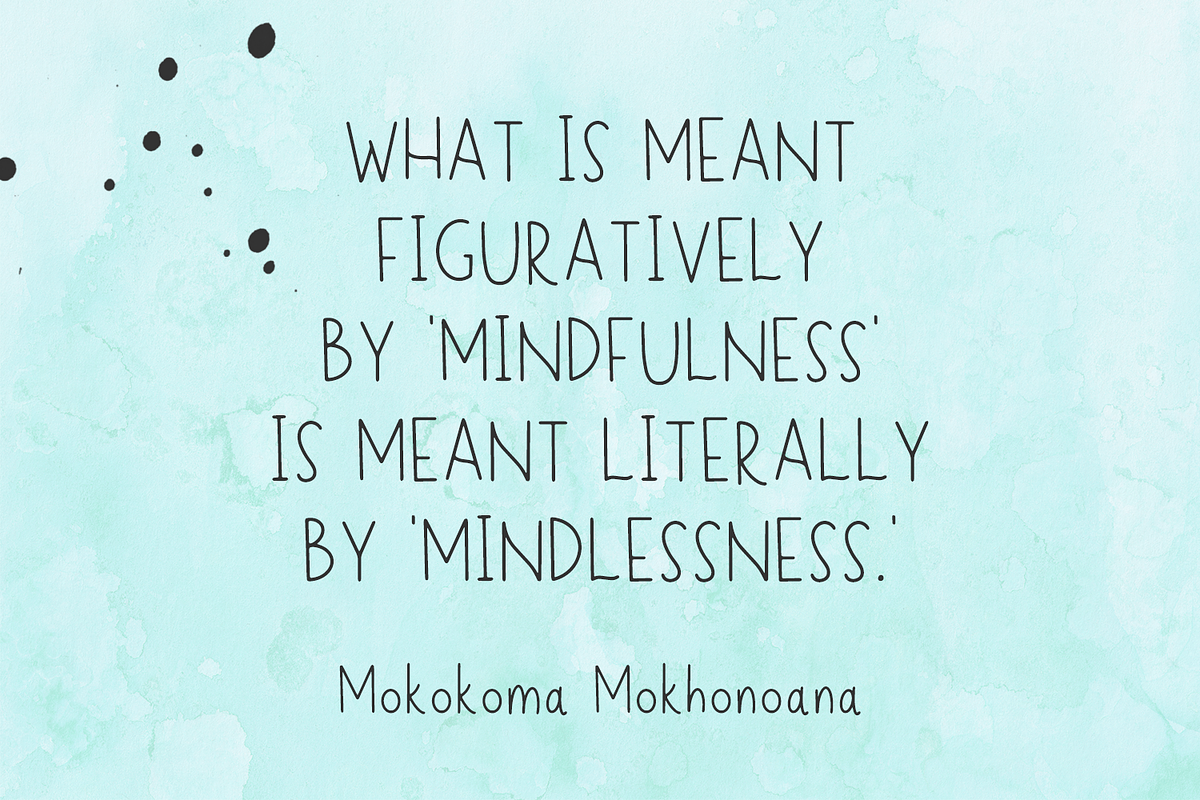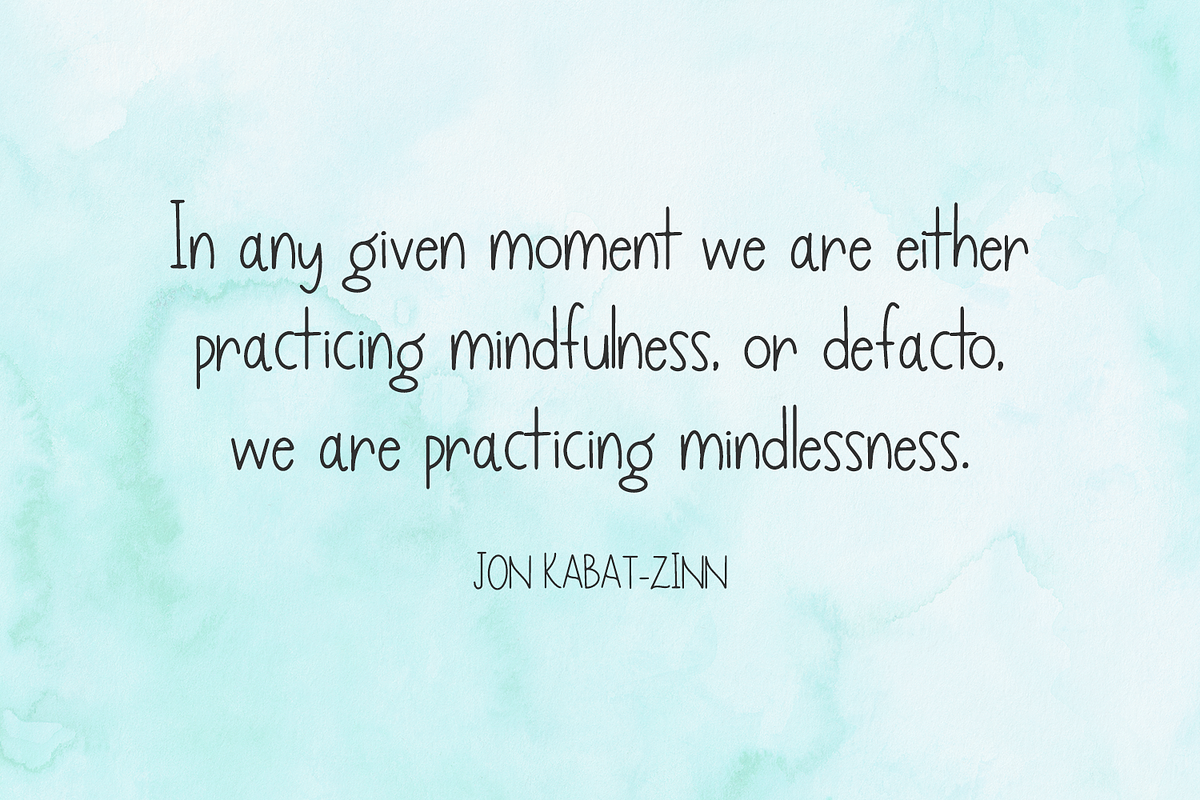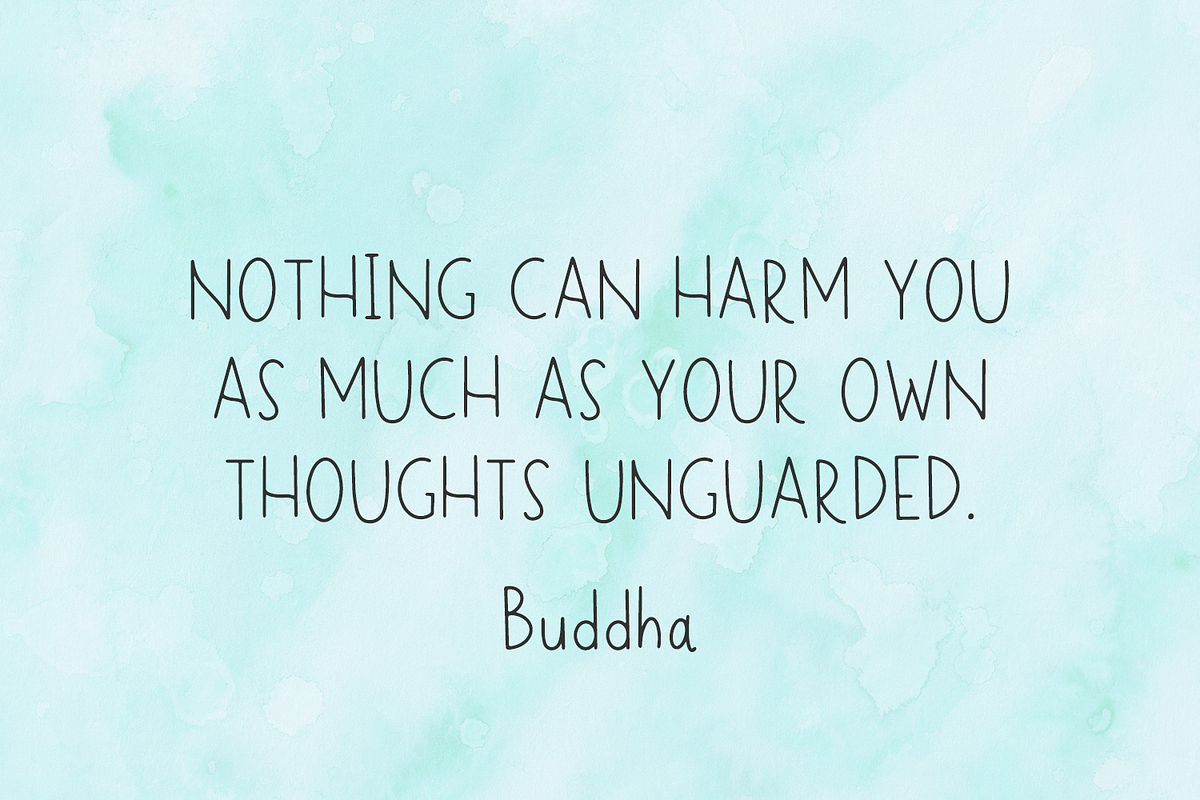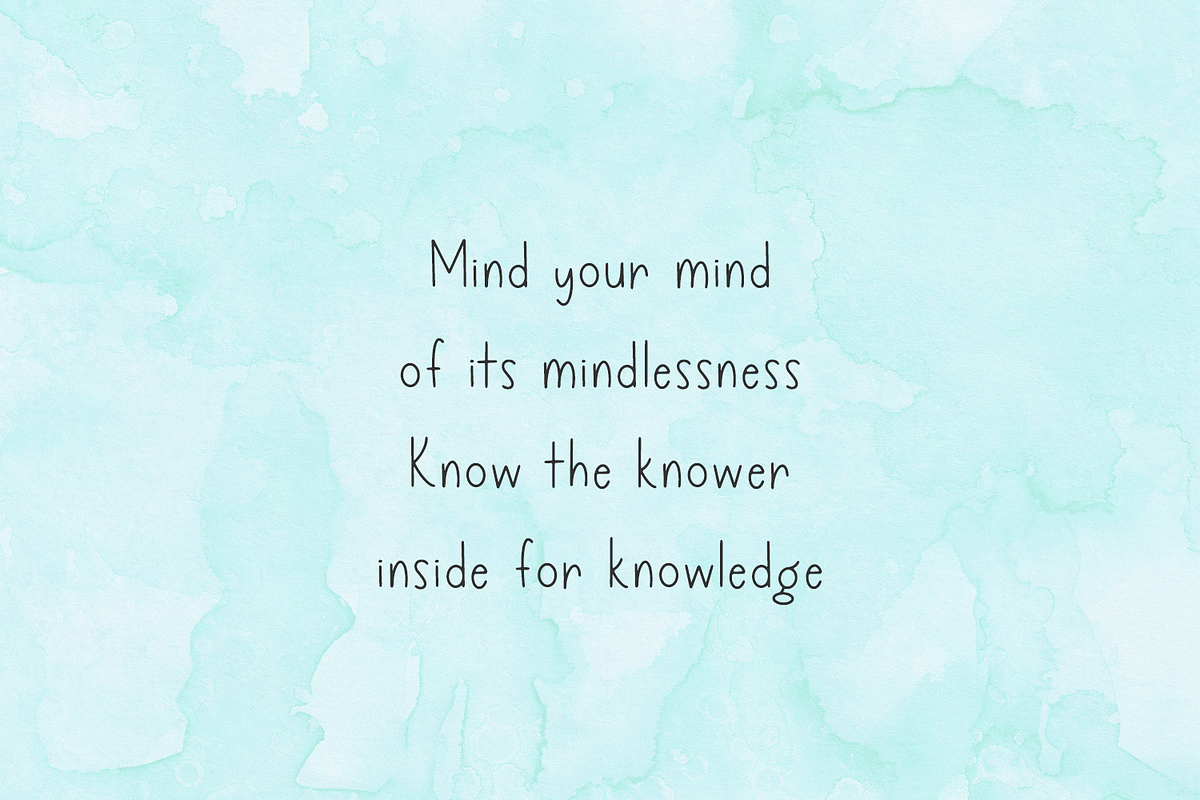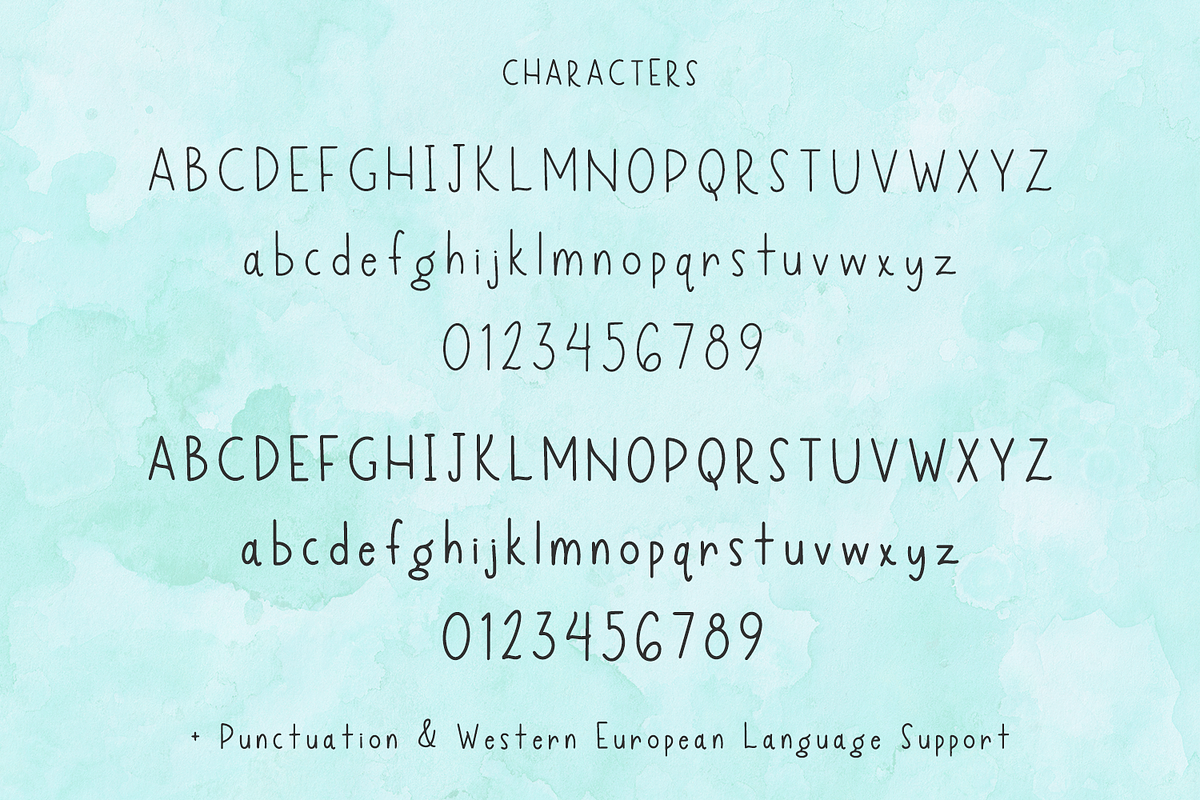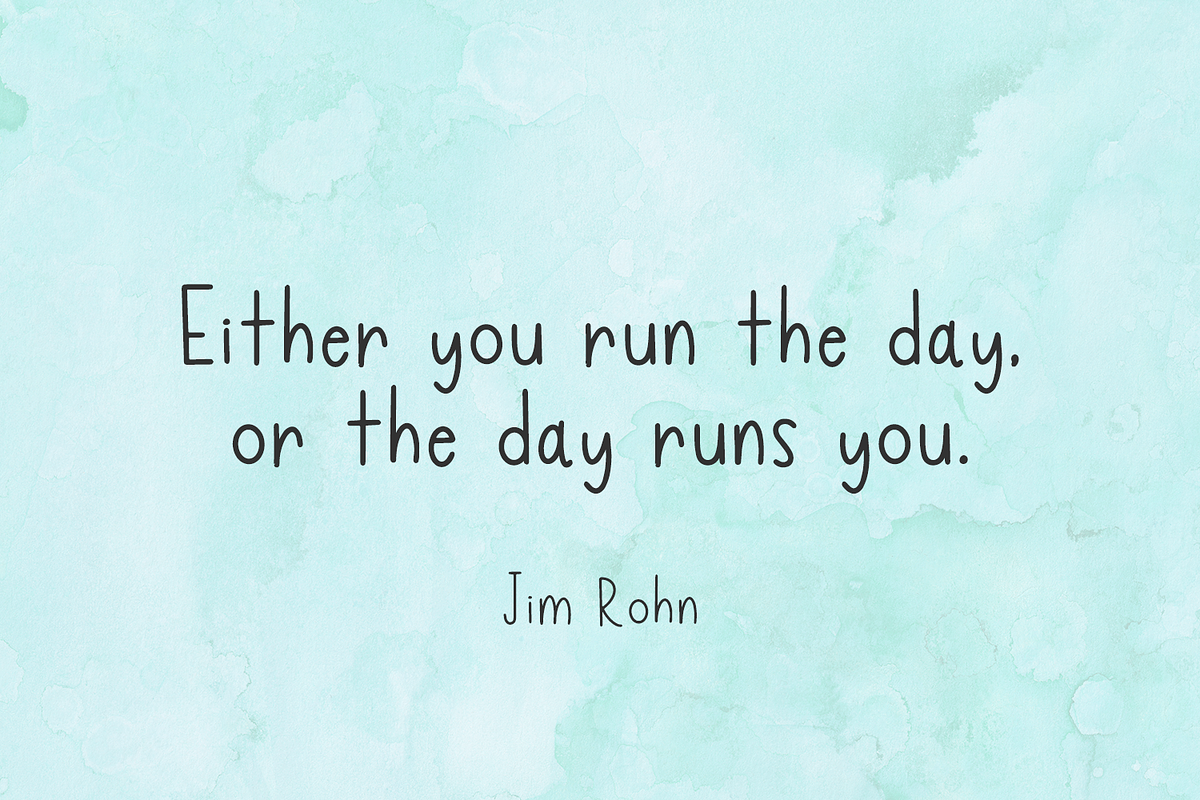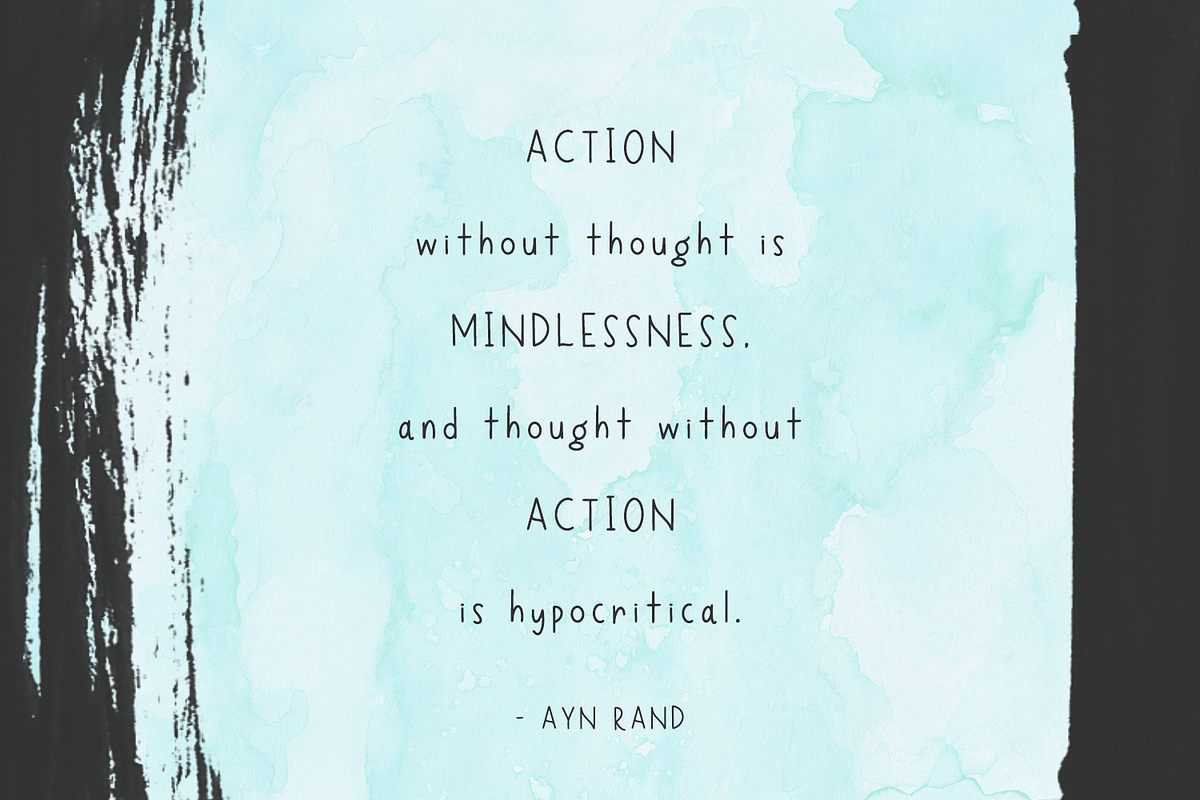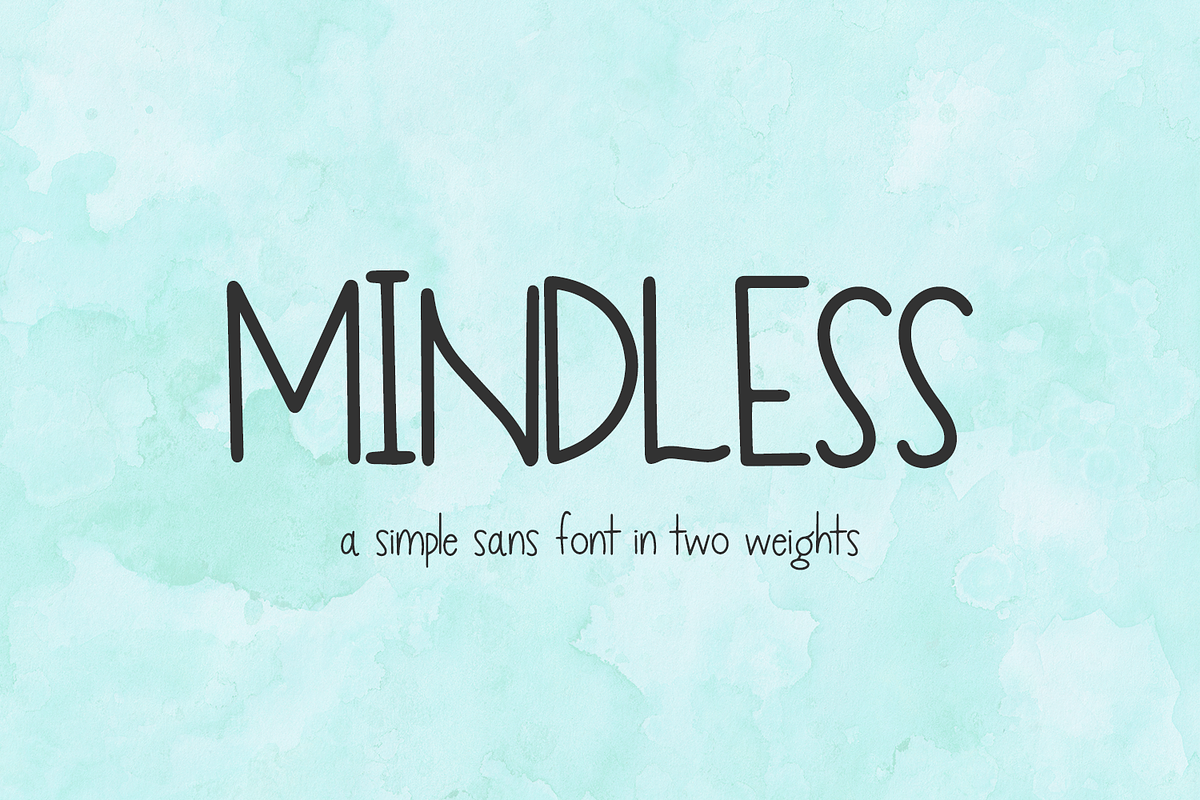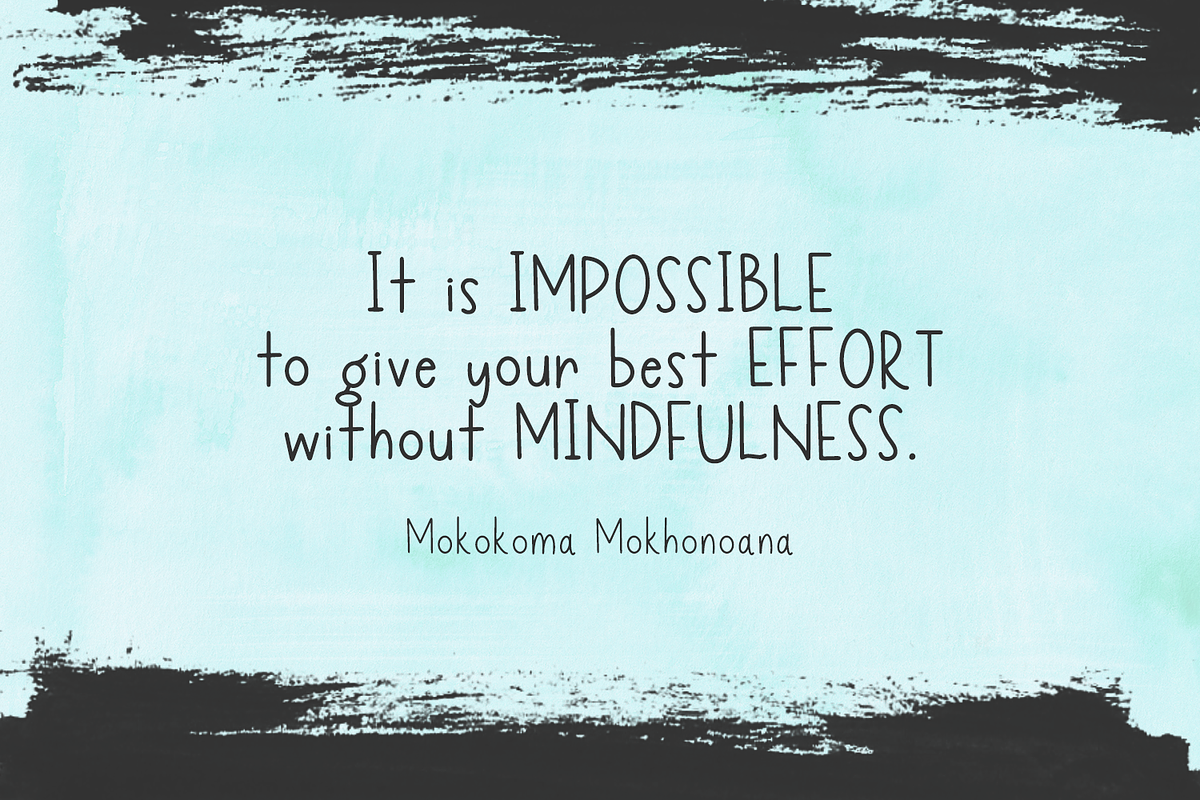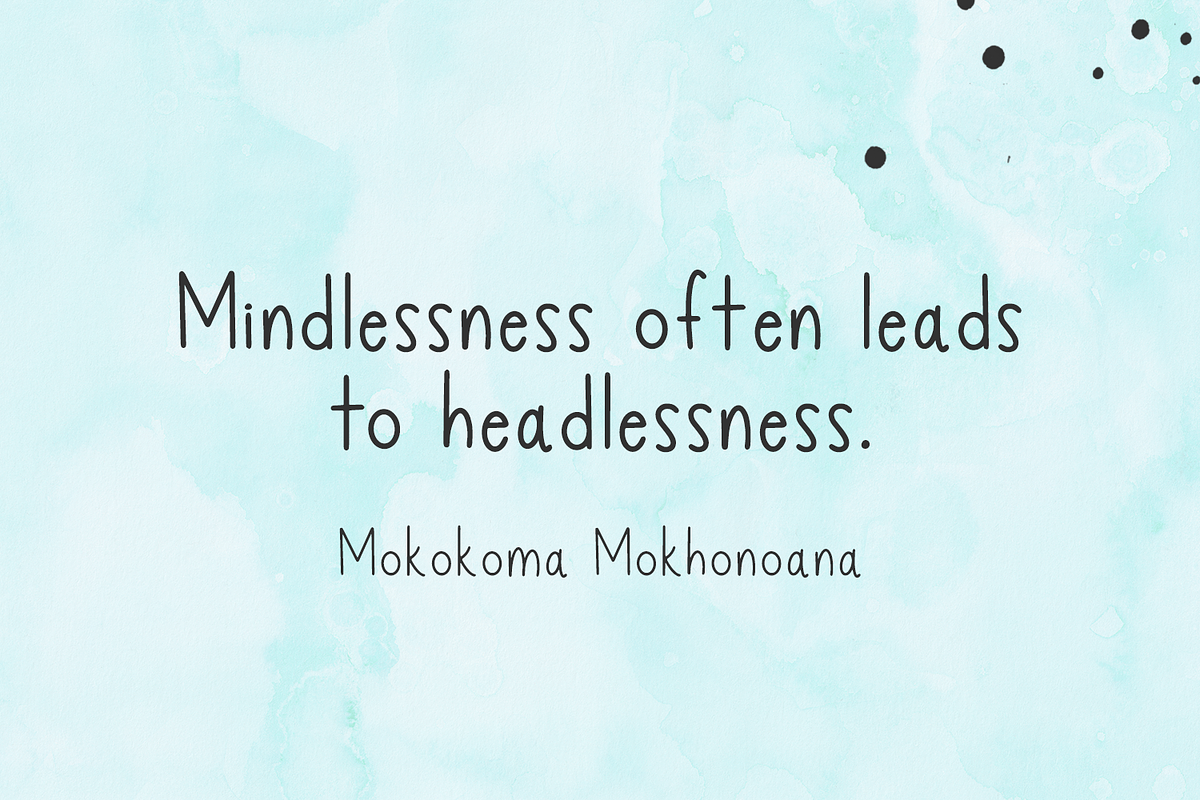
Mindless Sans
Mindless Sans is a handwritten printed font that comes in two weights - regular and bold.
Mindless is best for:
- quote graphics for social media
- logos + branding for kid-centric brands
- design items like shirts, coffee mugs, & more
- Cricut and Silhouette projects
- other crafting projects
- school or classroom projects
Mindless includes:
- full upper + lowercase characters
- numbers + punctuation
- Western European Language Support